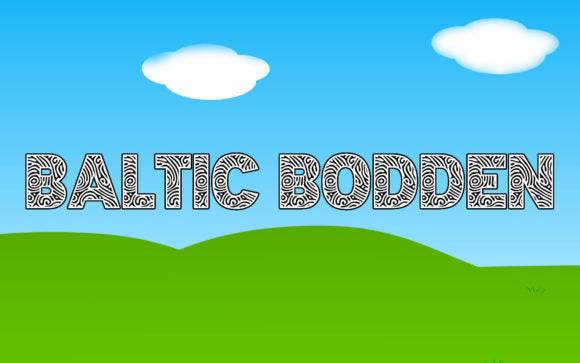
Baltic Bodden Font for Cricut, Silhouette and Printable Designs
Baltic Bodden Font is a digitally optimized typeface created for compatibility with popular cutting machines and printable craft workflows. With its clean edges and charming design, it’s well-suited for home decor lettering, gift tags, custom apparel, and planner-based designs.
As a font entity, Baltic Bodden ensures easy readability and precise results in both digital layouts and physical applications, especially where personalized visuals are key.
- Vinyl decals and iron-on transfers
- Printable wall art and planner pages
- Personalized mugs, shirts, and tote bags
- Craft fair products and display signage
- Greeting cards and paper-based gifts
- Perfectly balanced for cutting and printing
- Fun, casual style for everyday projects
Q: What is Baltic Bodden Font best used for?
Q: Is this font suitable for cutting vinyl and heat transfer?
A: Absolutely. Its clean lines and balanced spacing make it great for precise cuts and readable prints.